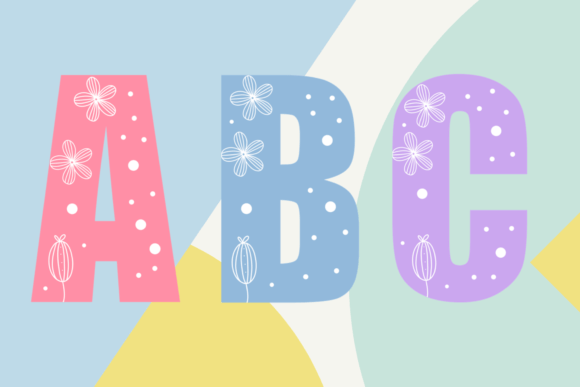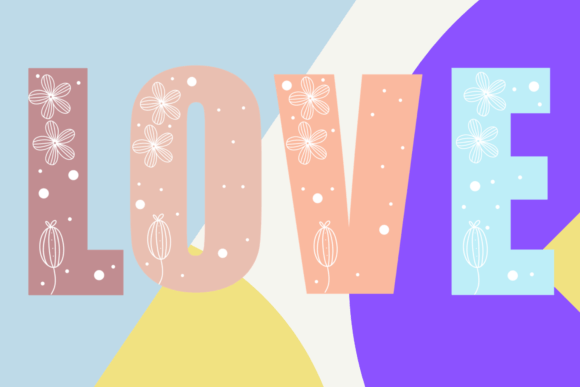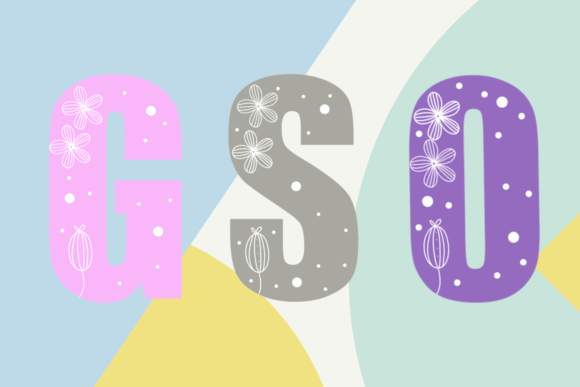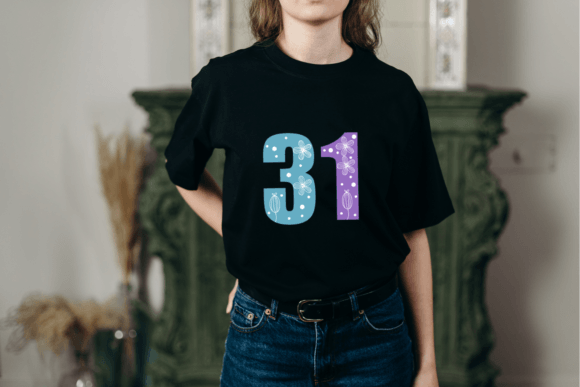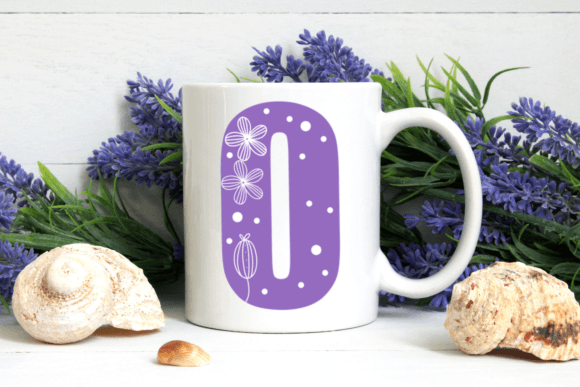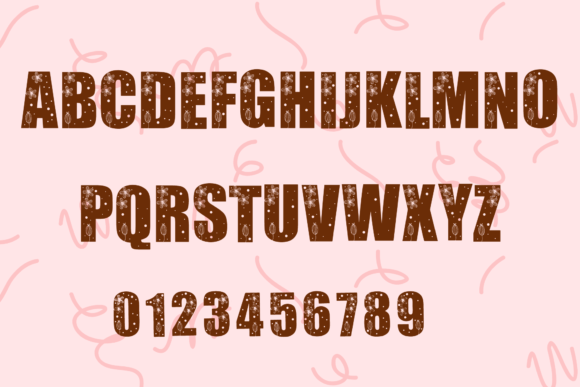
Introducing Flower Colorful Font: Adding a Splash of Fun and Excitement to Your Designs
Are you tired of using the same old fonts in your designs? Do you want to add a touch of fun and excitement to your projects? Look no further than Flower Colorful Font! This vibrant and dynamic font is perfect for capturing attention and making a bold statement. In this article, we’ll take a closer look at Flower Colorful Font and explore its features, benefits, and uses.
What is Flower Colorful Font?
Flower Colorful Font is a unique and eye-catching font that is designed to add a splash of color and fun to your designs. Its vibrant and dynamic style is perfect for capturing attention and making a bold statement. Whether you’re working on a graphic design project, crafting a handmade card, or creating a digital illustration, Flower Colorful Font is the perfect choice.
Features of Flower Colorful Font
So, what makes Flower Colorful Font so special? Here are just a few of its key features:
- Vibrant and Dynamic Style: Flower Colorful Font features a vibrant and dynamic style that is perfect for capturing attention and adding a sense of fun and excitement to your designs.
- Multicolored Letters: Each letter in Flower Colorful Font is multicolored, adding a touch of whimsy and playfulness to your designs.
- Easily Customizable: Flower Colorful Font is easily customizable, allowing you to adjust the color, size, and style to fit your design needs.
- Perfect for a Variety of Projects: Flower Colorful Font is perfect for a variety of projects, including graphic design, crafting, digital illustration, and more.
Benefits of Using Flower Colorful Font
So, why should you use Flower Colorful Font in your designs? Here are just a few benefits:
- Adds a Touch of Fun and Excitement: Flower Colorful Font adds a touch of fun and excitement to your designs, making them more engaging and attention-grabbing.
- Perfect for Kids’ Projects: Flower Colorful Font is perfect for kids’ projects, such as birthday cards, party invitations, and educational materials.
- Great for Social Media Graphics: Flower Colorful Font is great for social media graphics, such as Facebook posts, Instagram stories, and Twitter headers.
- Easily Readable: Despite its playful style, Flower Colorful Font is easily readable, making it perfect for use in a variety of contexts.
Uses of Flower Colorful Font
So, what can you use Flower Colorful Font for? Here are just a few ideas:
- Graphic Design Projects: Use Flower Colorful Font in graphic design projects, such as brochures, flyers, and posters.
- Crafting Projects: Use Flower Colorful Font in crafting projects, such as handmade cards, scrapbooking, and DIY decorations.
- Digital Illustration: Use Flower Colorful Font in digital illustration projects, such as digital art, comics, and cartoons.
- Social Media Graphics: Use Flower Colorful Font in social media graphics, such as Facebook posts, Instagram stories, and Twitter headers.
Tips for Using Flower Colorful Font
Here are a few tips for using Flower Colorful Font:
- Use it Sparingly: Use Flower Colorful Font sparingly to add a touch of fun and excitement to your designs.
- Pair it with Other Fonts: Pair Flower Colorful Font with other fonts to create a unique and visually appealing design.
| Font Name | Flower Colorful Font |
| Author | Itme_digitalart |
In conclusion, Flower Colorful Font is a vibrant and dynamic font that is perfect for capturing attention and adding a sense of fun and excitement to any project. With its multicolored letters, easily customizable style, and wide range of uses, Flower Colorful Font is the perfect choice for designers, crafters, and digital artists. So why not give it a try and see the impact it can have on your designs?